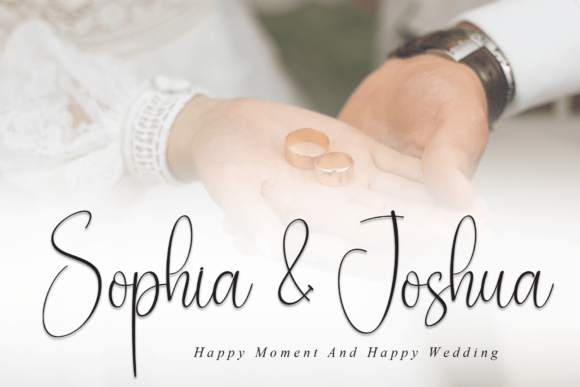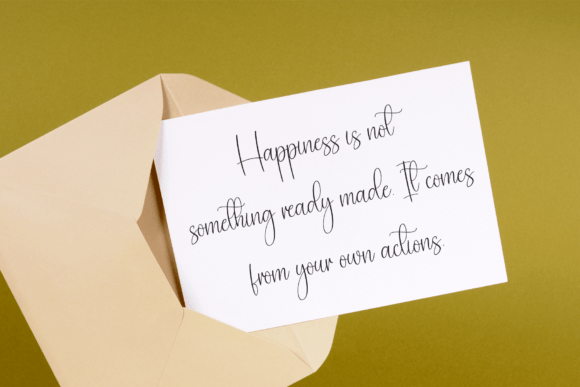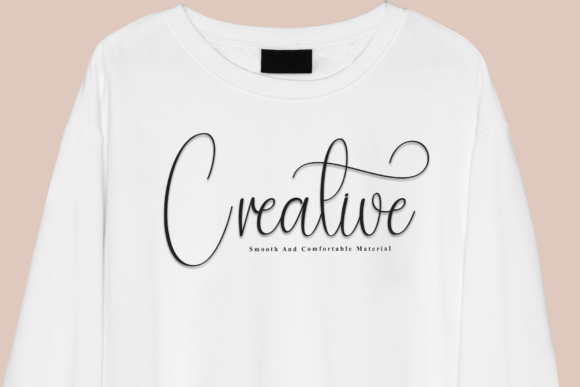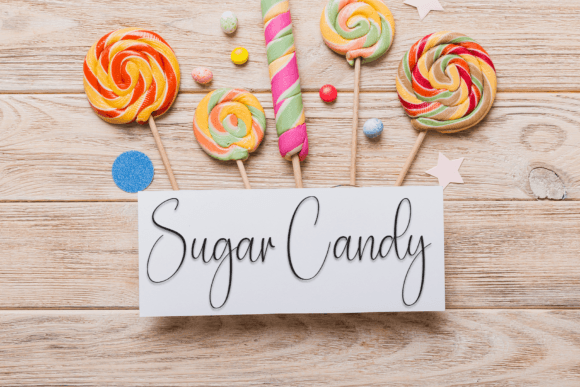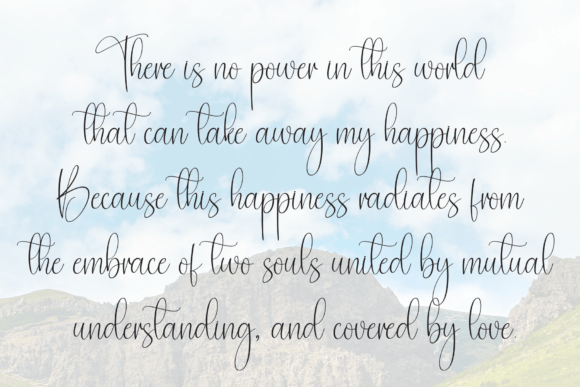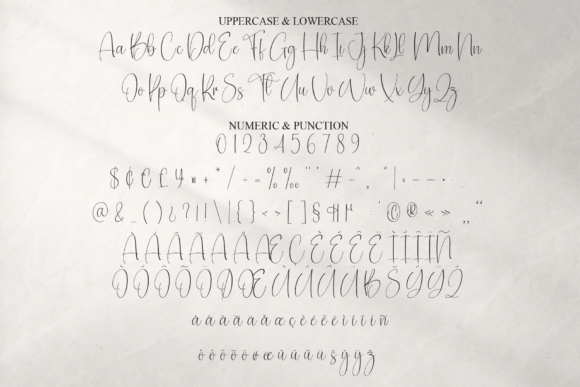
Unlocking Creative Potential with Andutione Font
Have you ever been in the middle of a design project, and suddenly, you’re stuck on finding the perfect font? I recall a particularly frustrating experience while working on a wedding invitation design. My client wanted something elegant, yet modern, and I was determined to deliver. After hours of scouring through font libraries, I stumbled upon a hidden gem that transformed my design from ordinary to extraordinary. That font was Andutione, and today, I’m excited to share its capabilities with you.
A Personal Review of Andutione Font
What I Love About Andutione
- ✨ Versatility: Andutione is perfect for a wide range of projects, from wall displays and wedding invitations to social media post logos and product packaging.
While Andutione has won me over, there are a couple of aspects to consider:
- 🤔 Learning Curve: If you’re new to using OpenType fonts or accessing glyphs, there might be a slight learning curve. However, this is a great opportunity to explore more advanced typography features.
The Inspiration Behind Andutione
Andutione was created with the vision of providing designers, crafters, and creative hobbyists with a versatile, stylish font that could elevate their projects. Inspired by the beauty of handwritten letters and the need for modern, creative expression, Andutione’s designer aimed to craft a font that was both elegant and accessible. The result is a font that not only meets but exceeds the demands of various design projects.